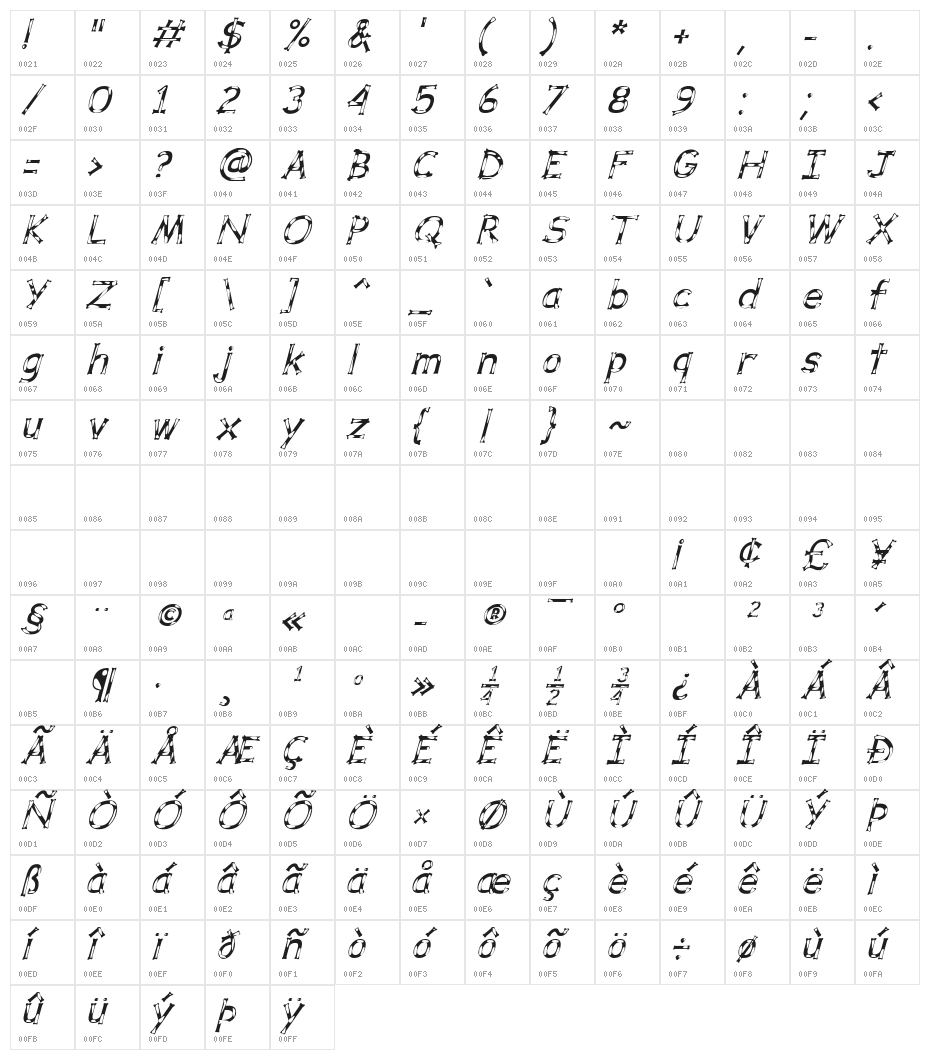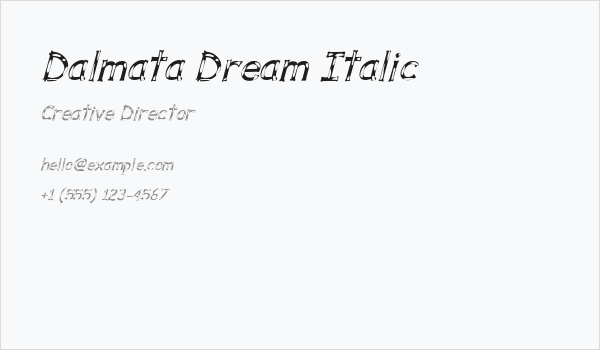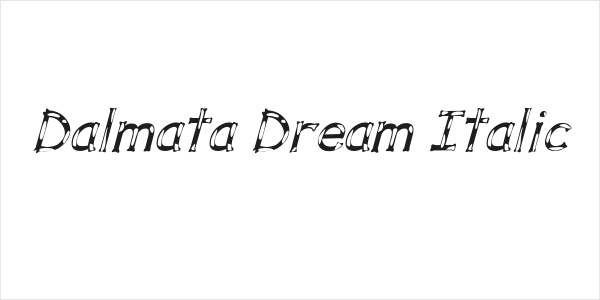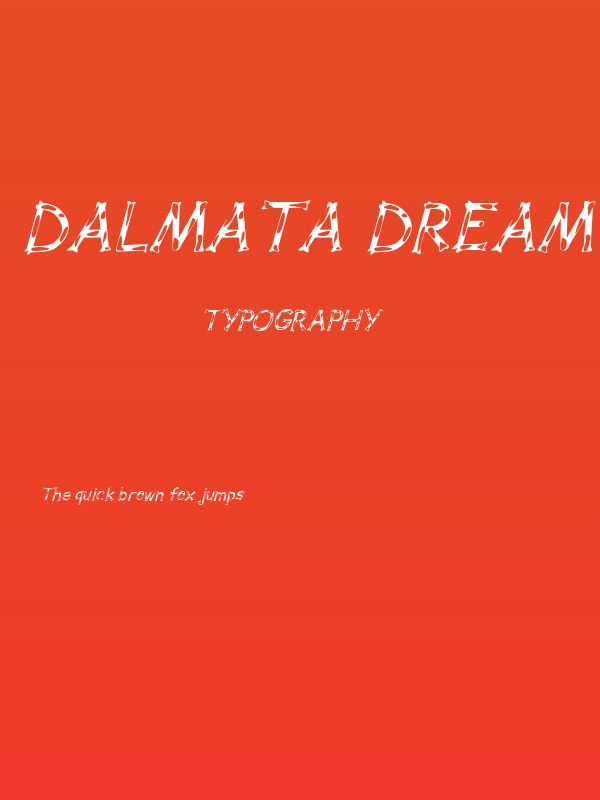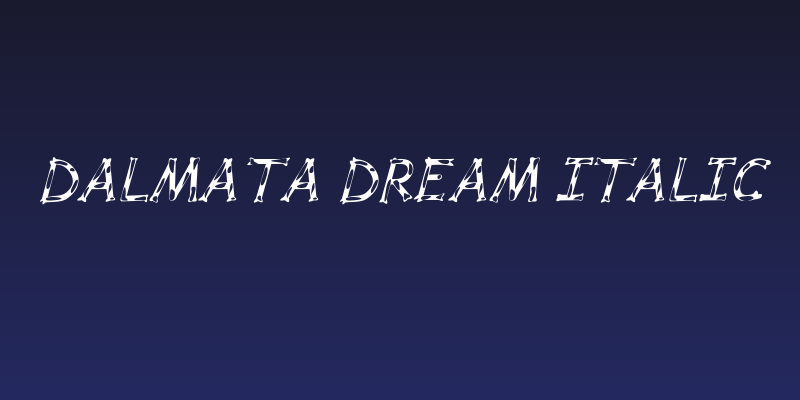
Dalmata Dream Italic Font
Dalmata Dream Italic Description
This font features a unique and playful style, characterized by its italicized, dynamic letterforms that incorporate a spotted pattern reminiscent of a Dalmatian's coat. The strokes are bold and slightly irregular, giving the font a lively and energetic appearance. The uppercase and lowercase letters maintain a consistent slant, enhancing the sense of movement. The numbers and special characters follow the same design principles, ensuring a cohesive look across all glyphs. The font's whimsical nature makes it ideal for creative projects that require a touch of fun and personality.